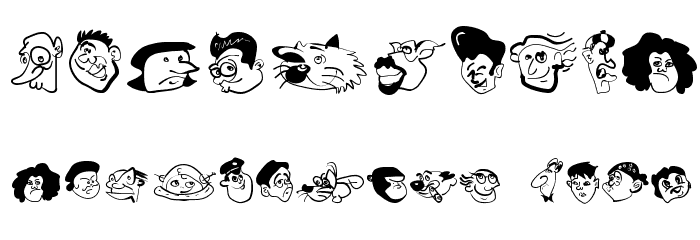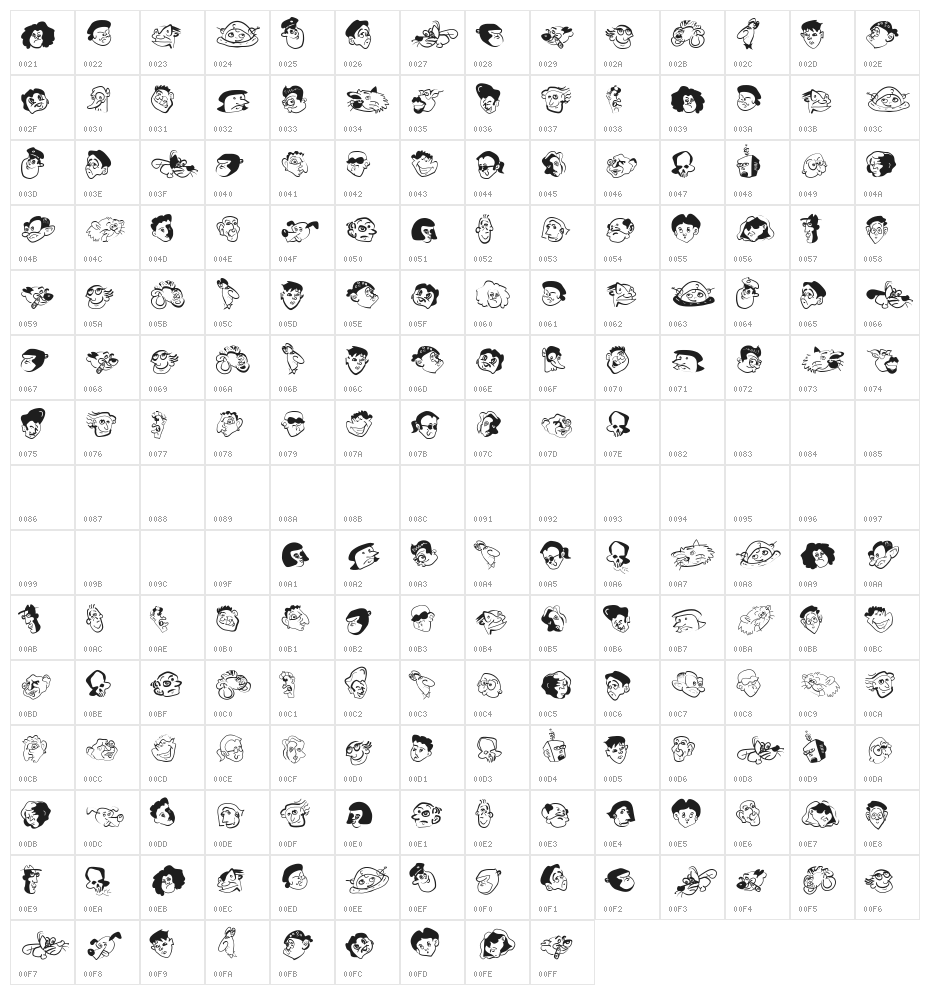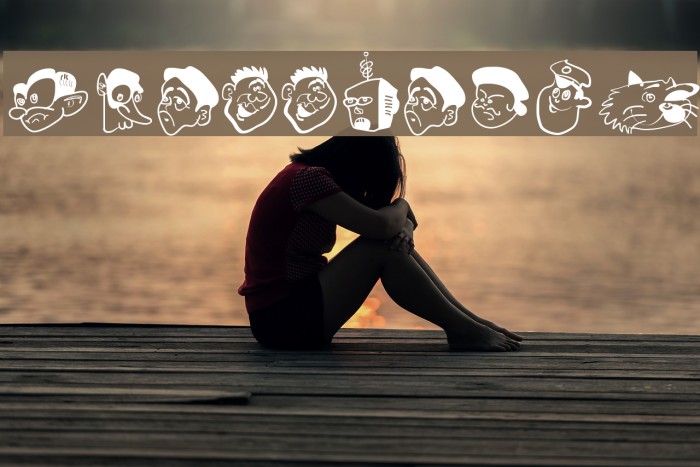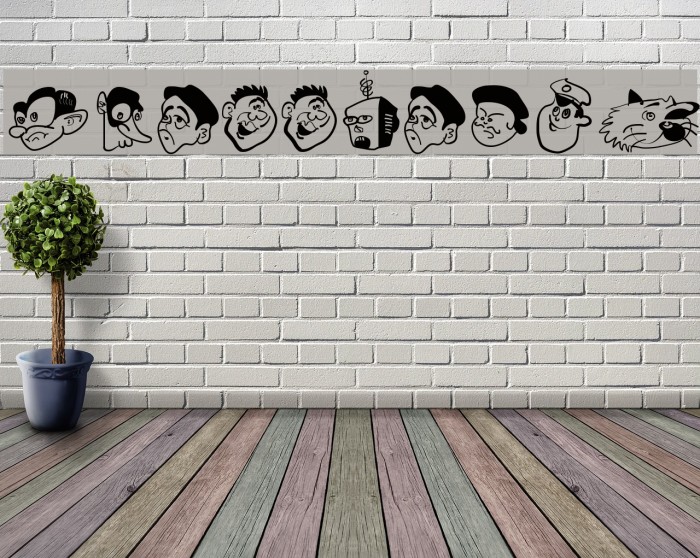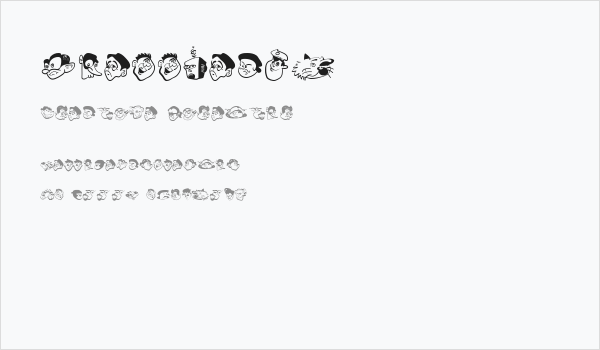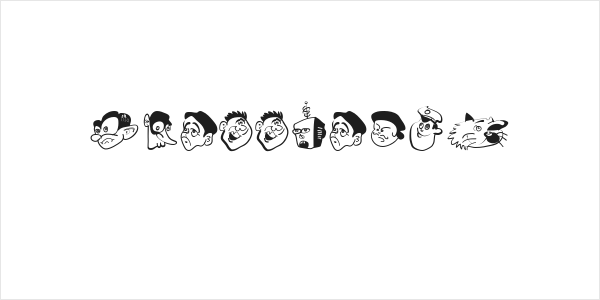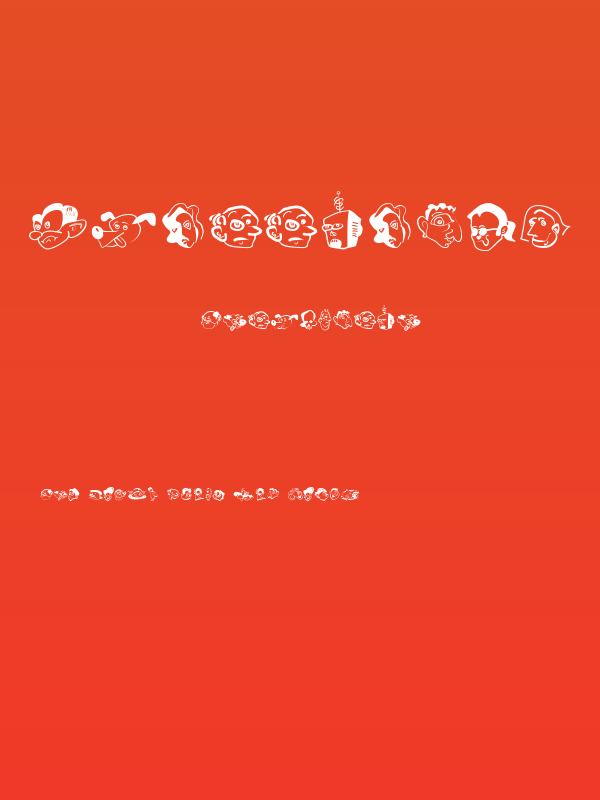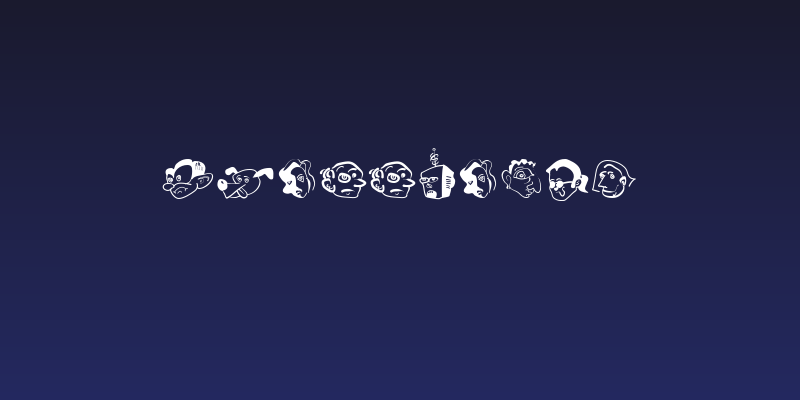
KoeppHeads Font
KoeppHeads Description
A highly decorative and playful typeface where each character is represented by a unique cartoon caricature head, featuring a wide variety of expressive faces and styles, both human and animal. The glyphs are bold, hand-drawn, and vary in line thickness, with a whimsical and humorous tone throughout.
| Overall Style | Decorative, Playful, Whimsical |
| Use Case | Logos, Posters, Headlines, Themed event materials |
| Proposed Projects | ChildrenΓ’β¬β’s books, comic titles, party invitations, posters, novelty branding, greeting cards. |